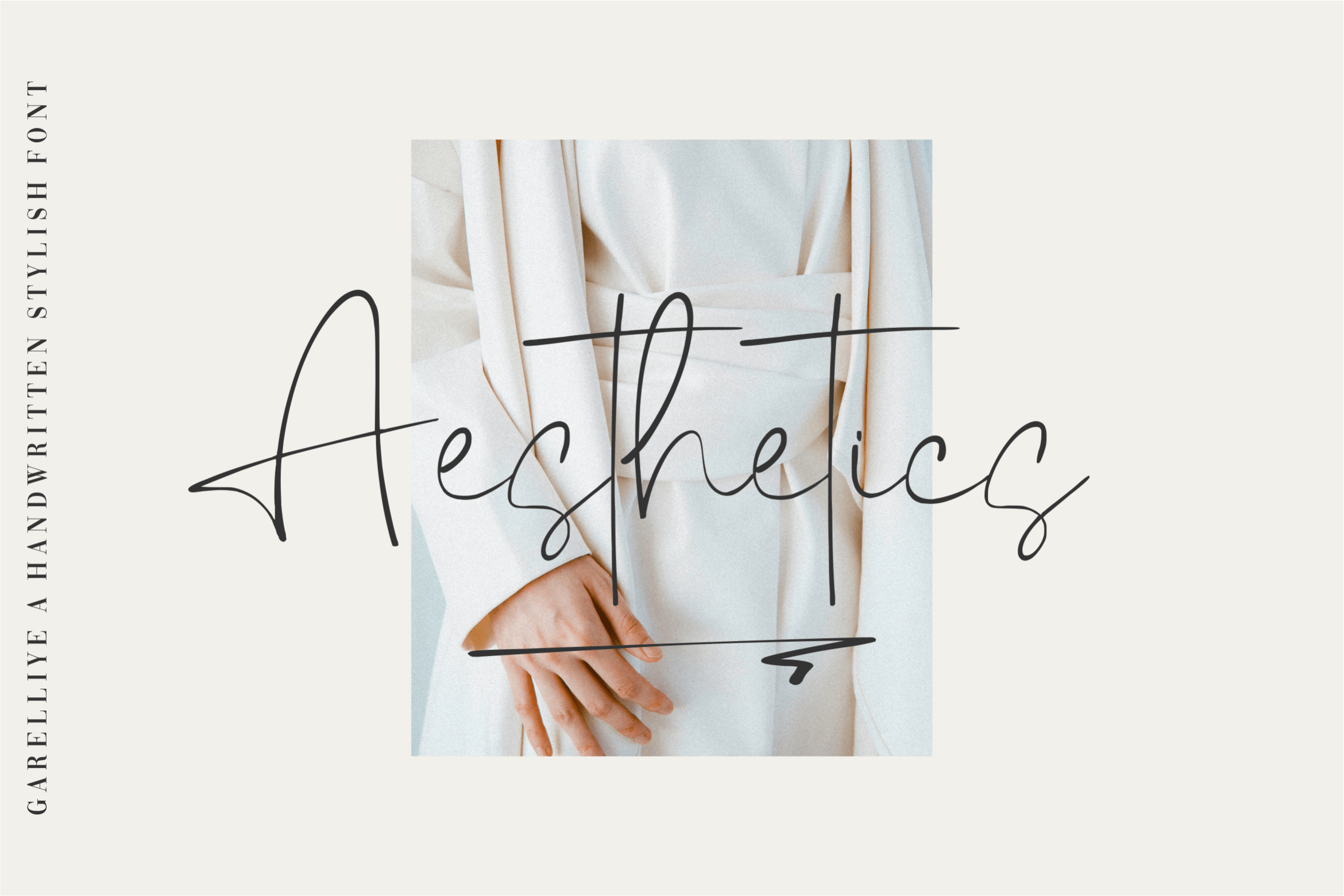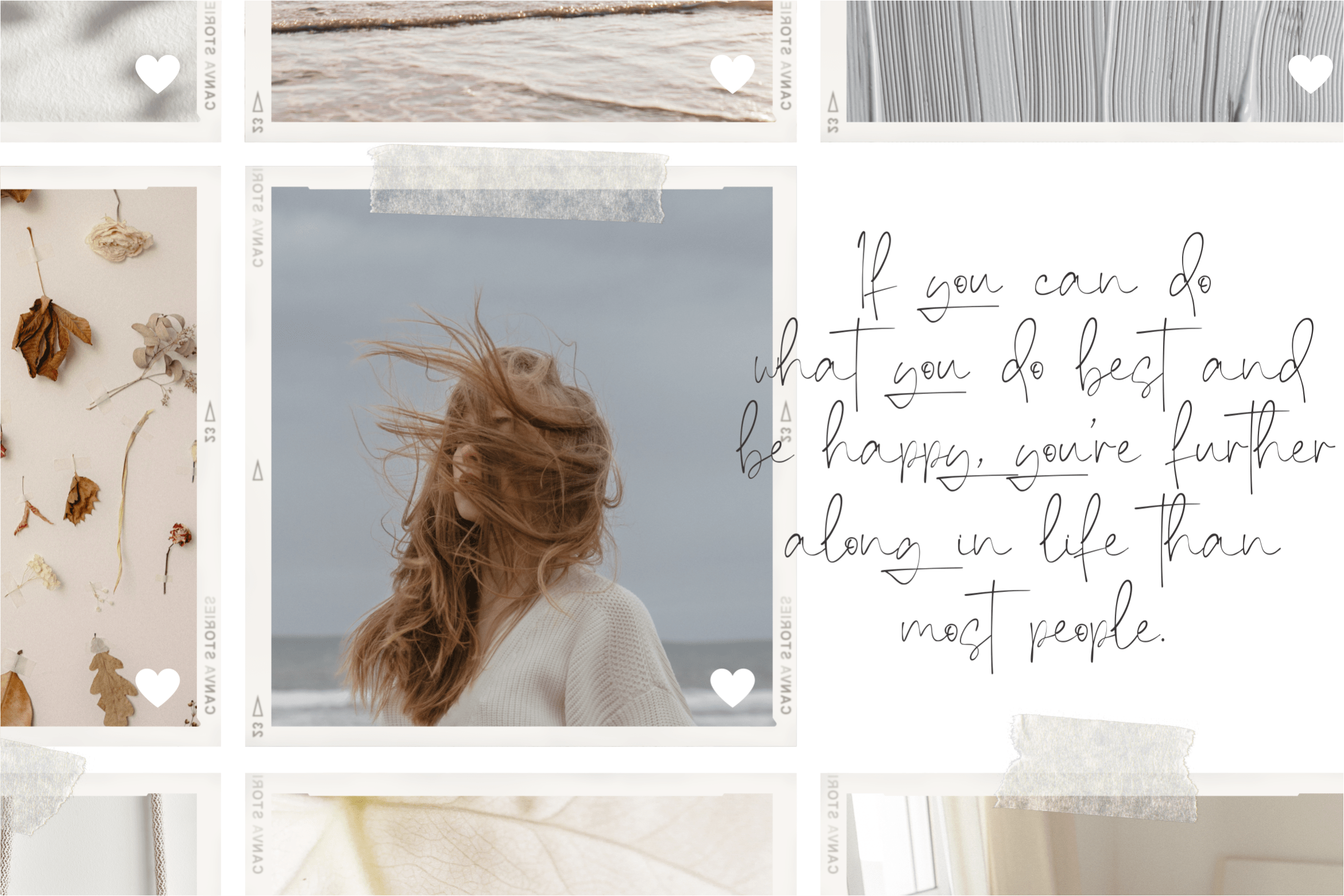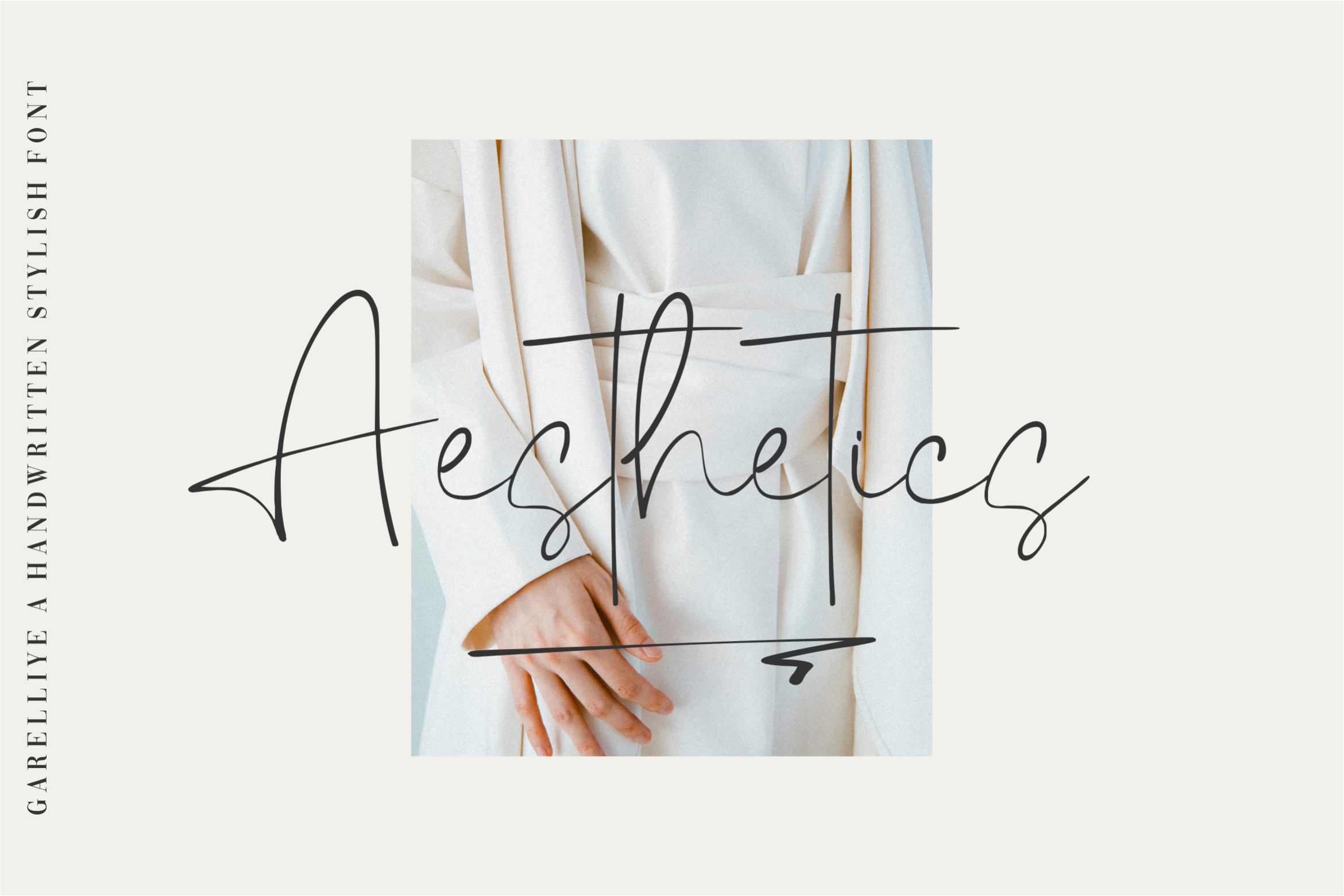
Garelliye Handwritten Font
This is a Handwritten Stylish Font. Garelliye is perfect for product packaging, branding project, megazine, social media, wedding, or just used to express words above the background. This font includes OTF & TTF, Garelliye also multilingual support.